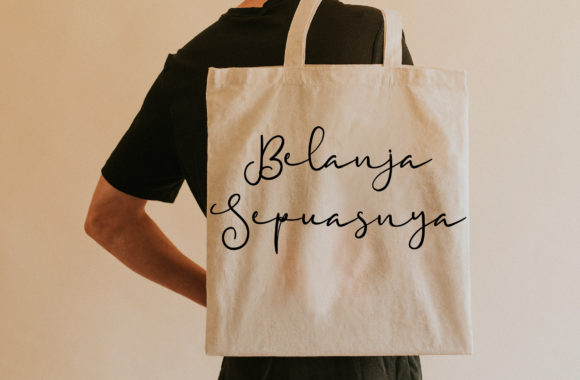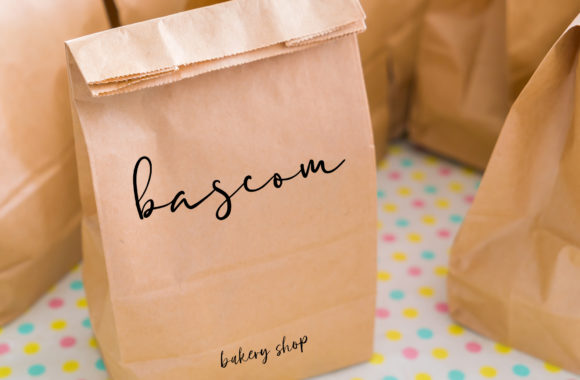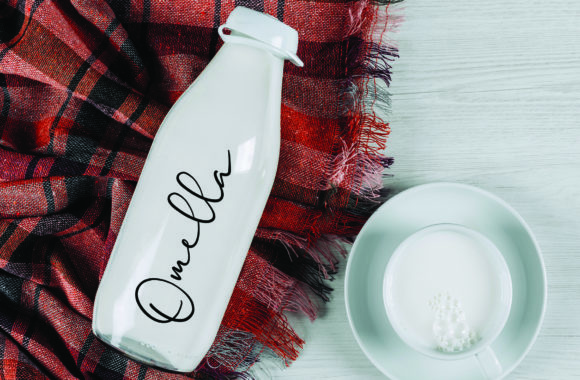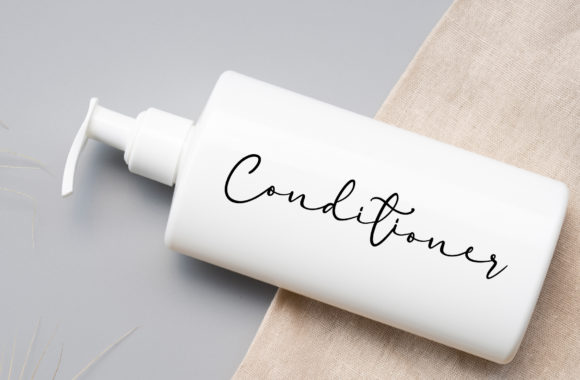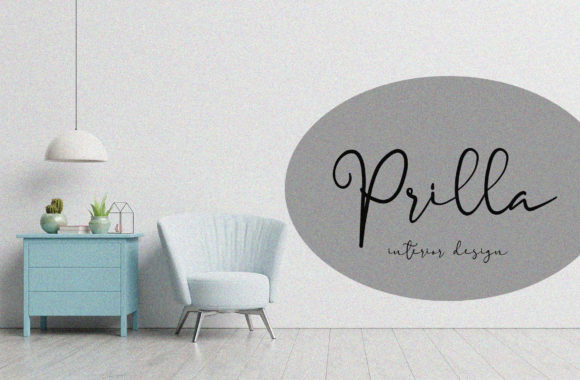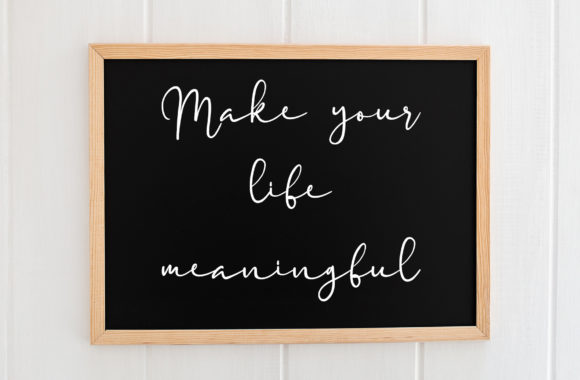
The Designer’s Delight: Unpacking the Beauty of Beutroh Font
Ah, the quest for the perfect font – a designer’s eternal struggle. I recall working on a luxury branding project, pouring over font libraries, and feeling like I was stuck in a design rut. That’s when I stumbled upon Beutroh Font, a beautiful light handwritten font that instantly elevated my design game. In this article, I’ll share my love for Beutroh, its unique features, and provide a comprehensive guide on how to make the most of this stunning font.
A First Impression: What Makes Beutroh Special
Beutroh is a gorgeous light handwritten font that exudes luxury and sophistication. Its unique feel and stunning impact make it perfect for high-end design projects. What sets Beutroh apart is its PUA (Private Use Area) encoding, which allows easy access to an array of amazing glyphs and ligatures. This means you can effortlessly add a touch of elegance to your designs without needing to dig deep into font files.
Here’s what I love about Beutroh:
- ✨ Luxurious feel: Beutroh adds a touch of sophistication to any design project.
- ✅ Ease of use: PUA encoding makes it easy to access glyphs and ligatures.
- 🎉 Versatility: Suitable for a wide range of design projects, from branding to packaging.
Now, let’s talk about a few quirks:
- 🤔 Limited use in body text: Beutroh is best suited for headings and titles, as it may be too light for body text.
- ⚠️ Glyph compatibility: Some glyphs may not work seamlessly with all design software or platforms.
The Story Behind Beutroh: Designer Inspiration
Beutroh was crafted with the goal of creating a beautiful, luxurious font that would add a touch of sophistication to any design project. Inspired by classic handwritten scripts and modern typography, Beutroh’s designer aimed to create a font that would be both elegant and versatile. While the designer’s story might be shrouded in mystery, their creation has undoubtedly made a lasting impact on the design community.
Q: What makes Beutroh unique?
A: Beutroh’s PUA encoding and beautiful handwritten design make it a standout font.
Q: Is Beutroh suitable for body text?
A: While Beutroh is stunning, it’s best suited for headings and titles due to its light weight.